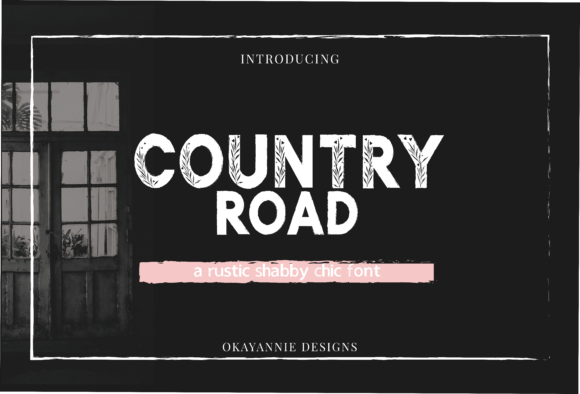
Country Road Font
With Country Road font, you'll unlock a rustic charm that breathes new life into your creative designs. This beautiful sans serif font, crafted by the talented OkayAnnie Designs, exudes a vintage elegance that captures the essence of natural simplicity.
Escape the ordinary and embark on a typographic journey that whispers the allure of the countryside. Country Road's unpretentious style effortlessly complements a wide range of design aesthetics, from whimsical invitations to earthy logos, and from heartfelt blogs to captivating social media posts.
Indulge in the font's subtle imperfections and handwritten feel, which lend an air of authenticity to your words. Each character dances upon the page with a raw, organic beauty, evoking the charm of handwritten letters and vintage typewriters.
Country Road is more than just a font; it's an invitation to slow down, embrace the beauty of imperfection, and let your creativity flourish. Its rustic appeal adds a touch of warmth and nostalgia to your designs, creating a lasting impression that resonates with your audience.
Say goodbye to bland and lifeless typography. With Country Road, you'll discover a font that speaks volumes, capturing the essence of nature's simplicity and injecting a touch of rustic charm into your creative endeavors.